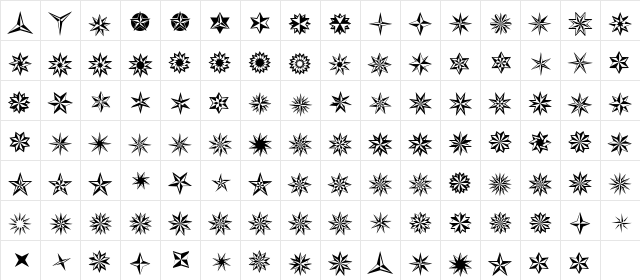
XStarsAndStripesTwo Regular
Design Context for XStarsAndStripesTwo
XStarsAndStripesTwo is a composed and adaptable typeface that performs quietly and consistently across a wide range of design contexts.